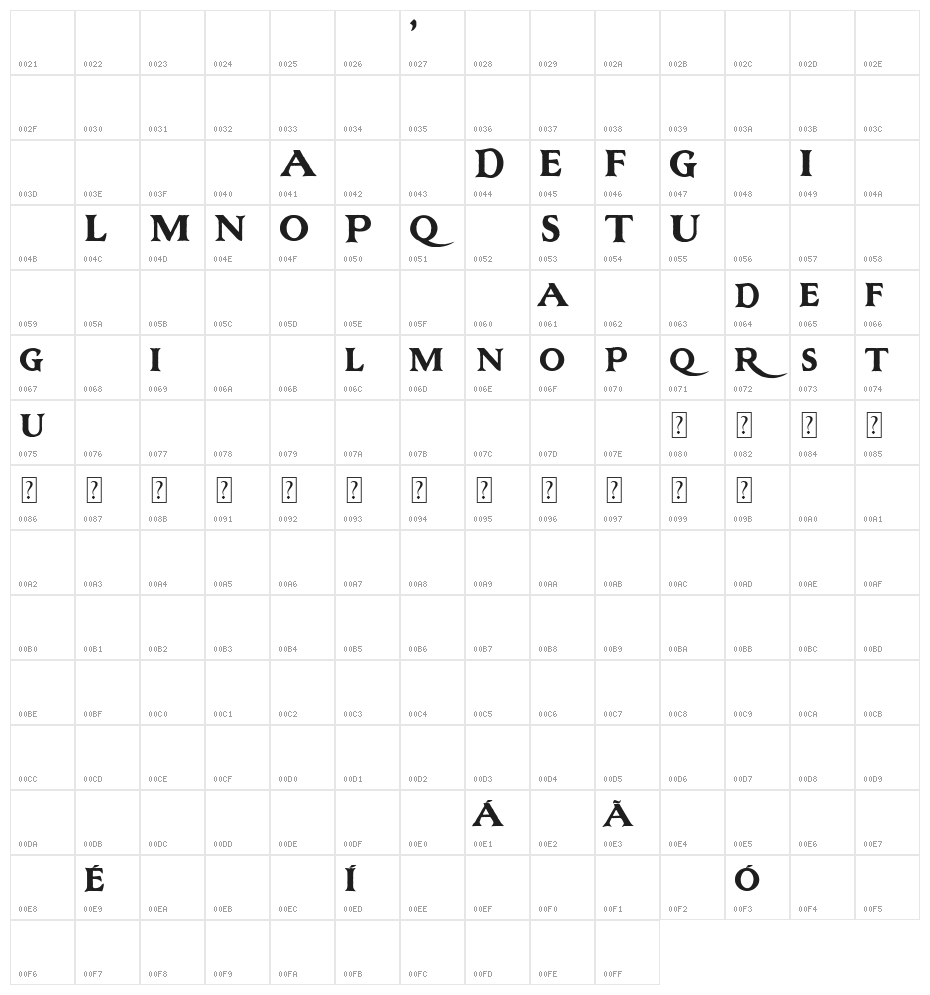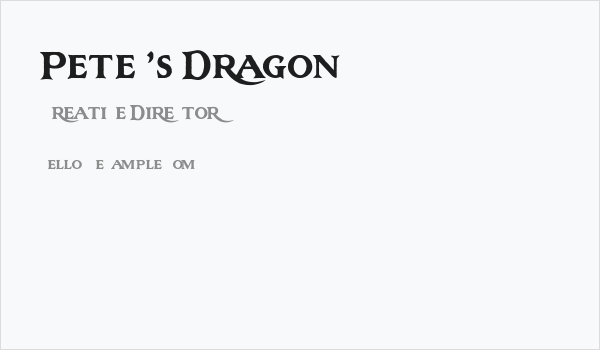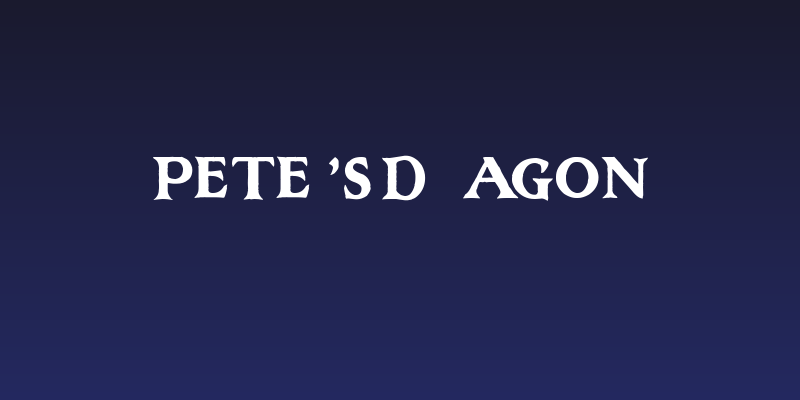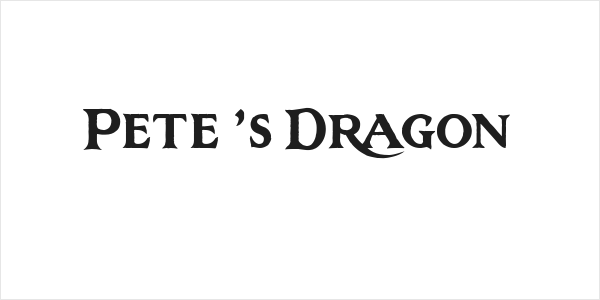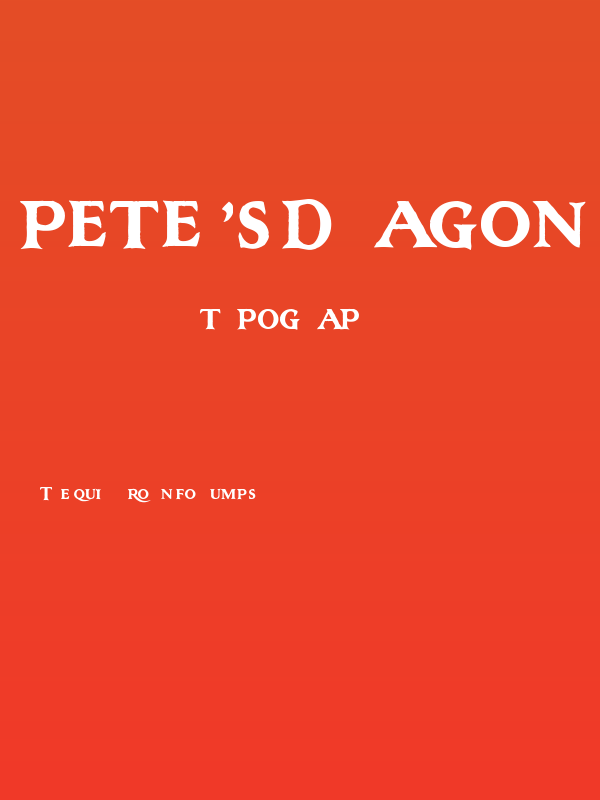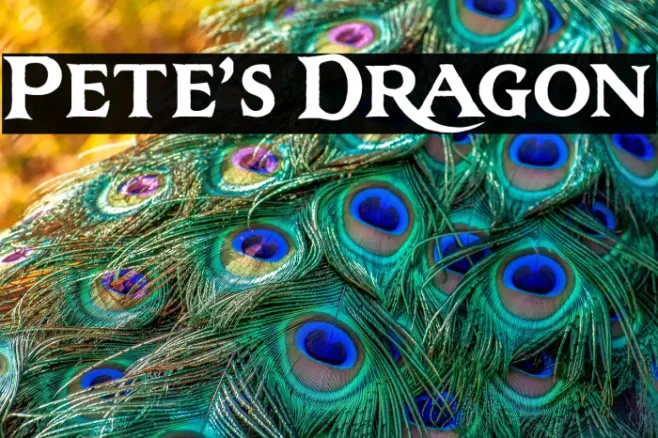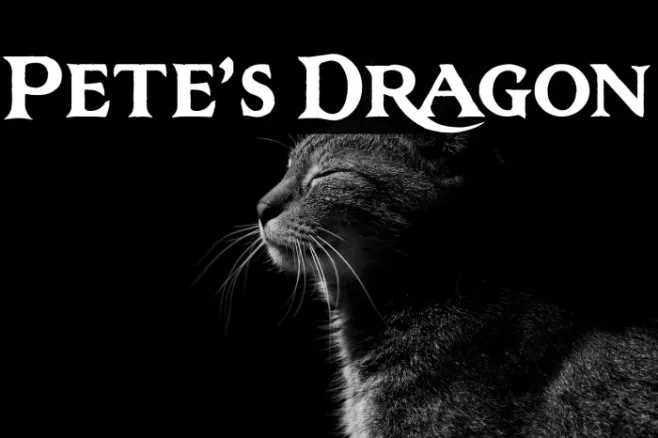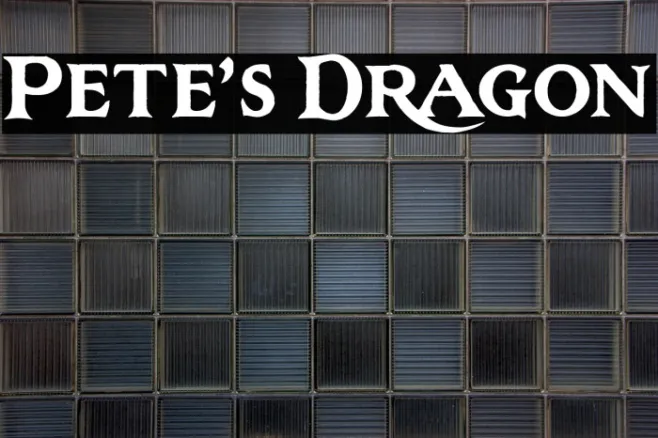
Pete's Dragon Font
Pete's Dragon Description
This font features a bold and dramatic style with a medieval flair, characterized by its sharp serifs and ornamental swashes on certain letters. The uppercase letters exhibit a strong presence with thick strokes and pointed edges, while the lowercase letters maintain a consistent weight, enhancing readability. The unique embellishments on letters like Q and R add a decorative touch, making it suitable for themed designs. The overall appearance is reminiscent of historical scripts, yet it maintains a modern twist with its clean lines and structured form.
| Overall Style | Medieval, Decorative |
| Proposed Projects | Ideal for fantasy-themed projects, book covers, movie posters, and branding that requires a historical or mythical aesthetic. |